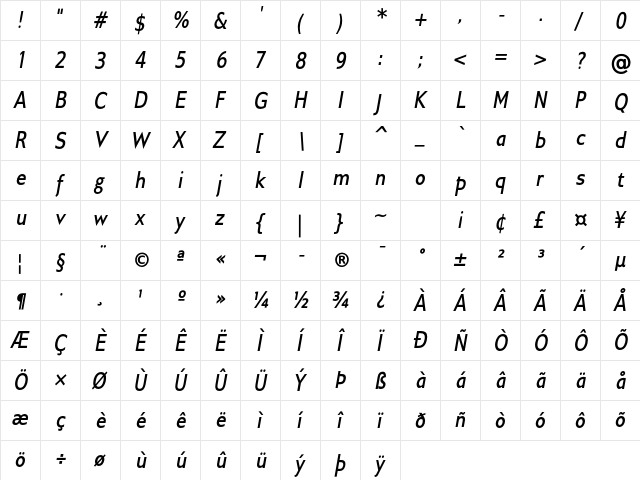
Gillius ADF Cond Bold Italic Font Preview
| Foundry | Arkandis Digital Foundry. |
| Designer | Hirwen HARENDAL |
Design Context for Gillius ADF Cond Typeface
Gillius ADF Cond offers clean, dependable letterforms without strong stylistic allegiance, making it a practical choice for designers who need flexibility. Its italic angle brings a sense of urgency and motion to the letterforms. Its bold stroke weight gives it real presence on the page. Its narrow stance lets it pack a punch even in space-constrained designs.
Pro Tip: Use Gillius ADF Cond for emphasis, pull quotes, and subheadings where its slanted energy can add rhythm to the layout.